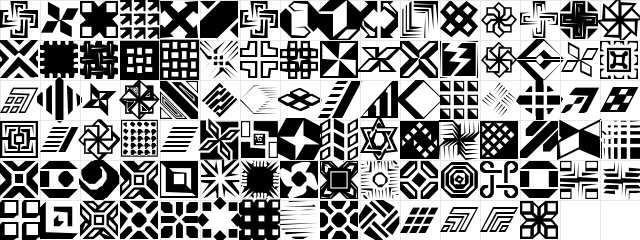
Carr Dings Normal Font Preview
Carr Dings Normal
Design Context for Carr Dings Typeface
Carr Dings takes a measured approach to typography — its balanced proportions and neutral character make it a reliable workhorse for both digital and print work.